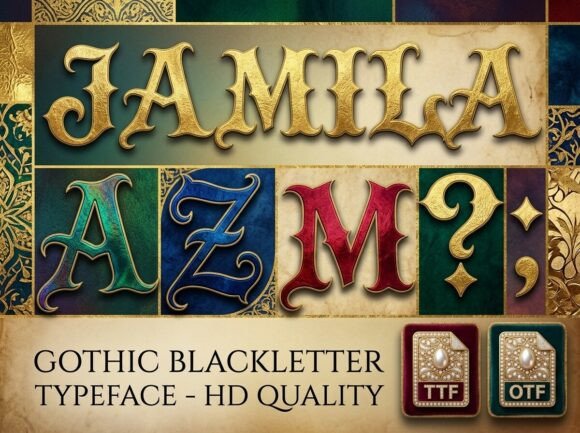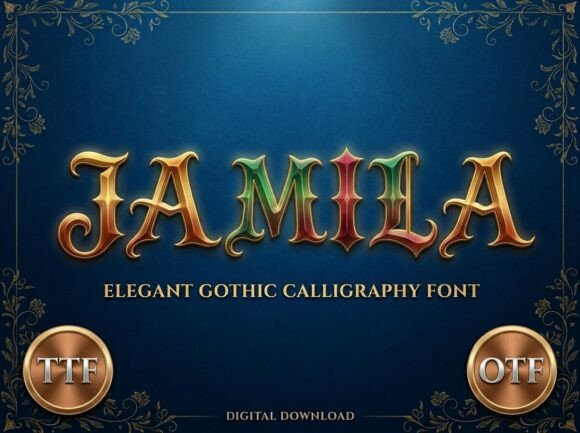
Introduction to Jamila Font
Immerse your audience in the world of high fantasy and ancient lore with Jamila, an ornate Blackletter typeface.
Characterized by its gothic structure and rich, jewel-toned metallic textures, this font is the definitive choice for โstunning wedding stationery,โ vintage logos, and artisanal craft designs Whether you are branding a luxury perfume or designing a fantasy book cover, Jamila provides an air of old-world mystery and royal elegance.
Key Features of Jamila Font
Why Choose Jamila Font?